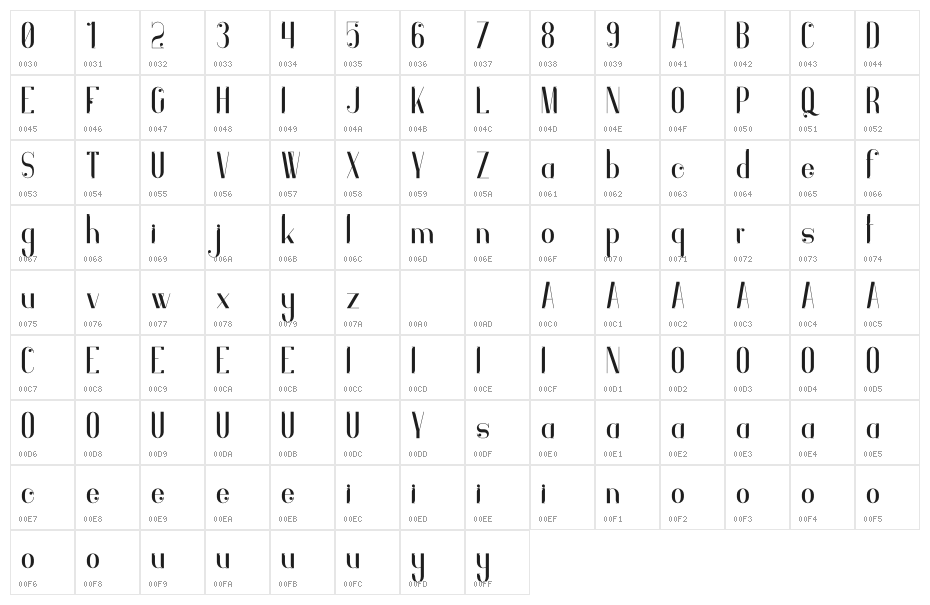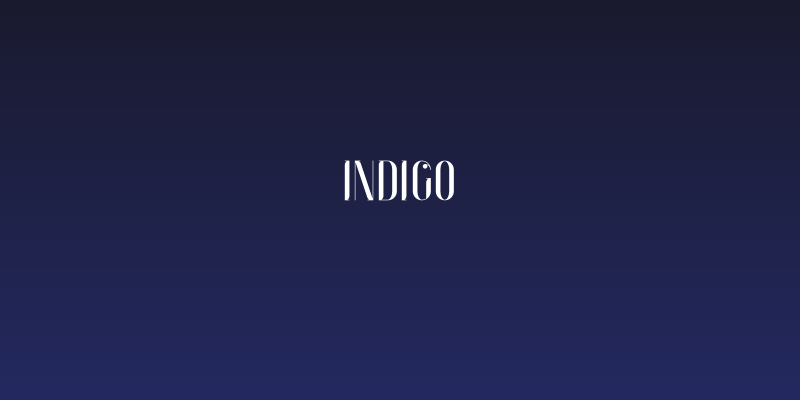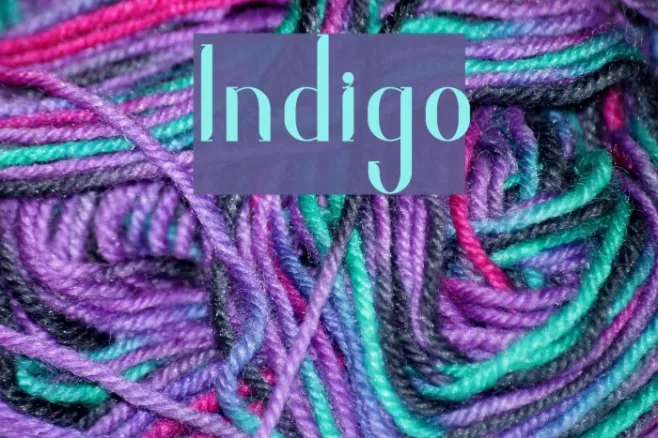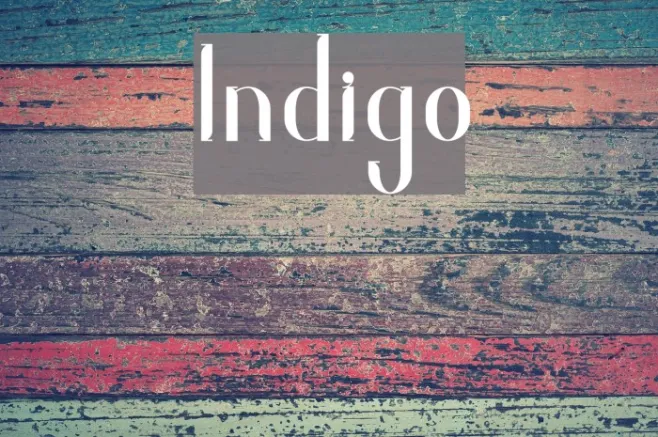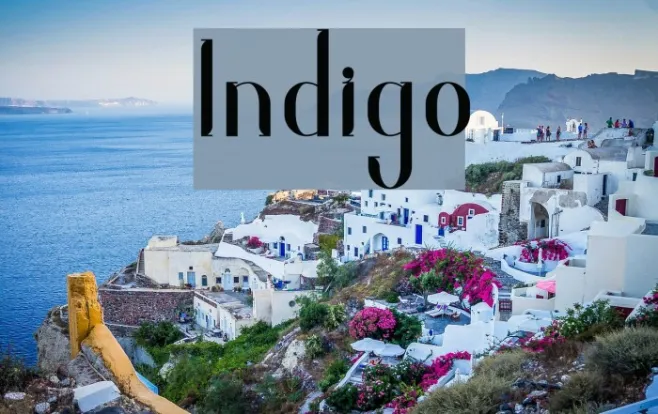
Indigo Font
Indigo Description
This font features a striking blend of modern and vintage elements, characterized by its high contrast between thick and thin strokes. The uppercase letters exhibit a tall, elegant form with sharp serifs, while the lowercase letters maintain a playful yet sophisticated look with unique curls and loops. The numerals are bold and distinctive, ensuring readability. Special characters are designed with a creative flair, adding to the font's decorative appeal. Overall, this typeface exudes a sense of luxury and refinement, making it suitable for high-end branding and editorial design.
| Overall Style | Modern, Vintage |
| Proposed Projects | This font is perfect for luxury branding, editorial design, fashion magazines, and high-end product packaging. |